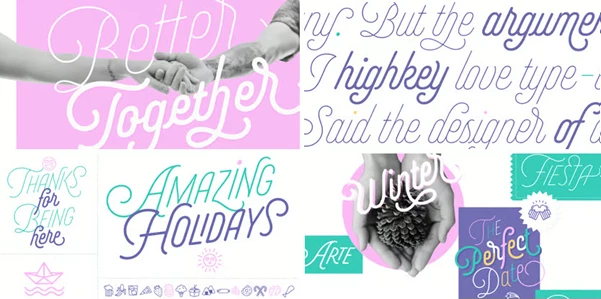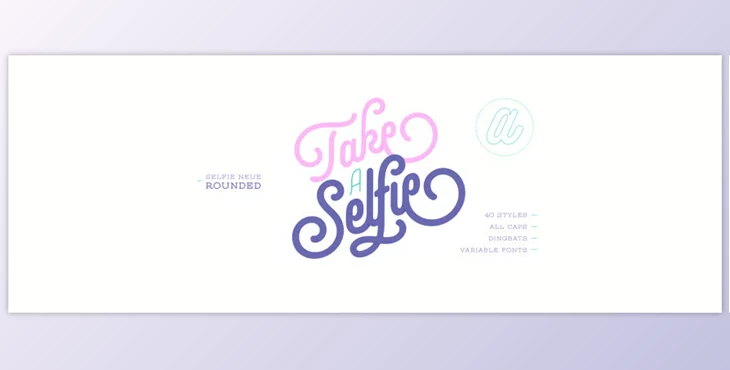
The development of the Selfie in 2014 was a revolution in design by creating the first selfie font based on the neon lights of Buenos Aires alongside the Spencerian style. Selfie showcased beautiful calligraphic forms combined with monolinear sans structure, creating a font with endless swashes and ligatures, strengthening its uniqueness. Owing to the font's appealing look, Selfie gained quite a bit of attention and was used in many publications, eventually becoming a designer favorite. To continue with the trend, a newer version was created in 2020 called Selfie Neue Rounded, an attempt to give a fresh spin to the old classic.
All glyphs are now redrawn and re-proportioned into more attractive frames, thus making Selfie Neue a complete redesign. Adaptations to the font family include Rounded and Sharp styles, Thin to Black, and Short to Tall. This offers a vast scope for diverse uses ranging from covers of magazines and books to advertising and social media branding. Selfie Neue is still playful and versatile due to the charm of swashy capitals and the lovely icons designed by Melissa Cronenbold.
Selfie Neue as a Variable Font (VF) allows users to customize the font by adjusting the x-height and weight axes, enhancing its cross-platform usability. Do not forget to outline the font for optimal print results, and remember to turn off alternates for shorter words. Flexible and commanding, Selfie Neue makes it easy to create fascinating works while emanating contemporary sophistication.